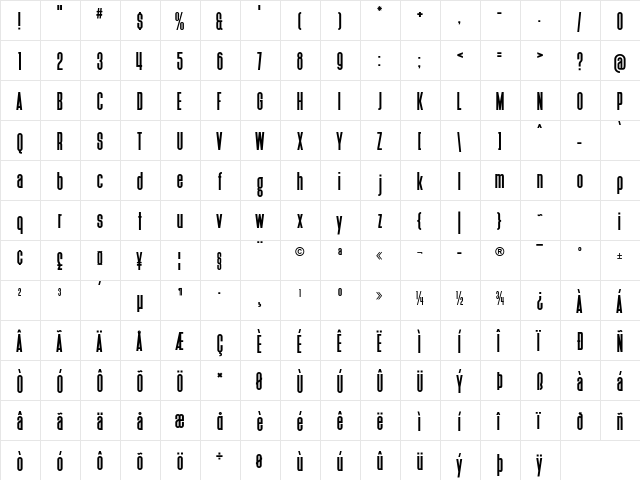
Heathergreen Regular Font Preview
Heathergreen Regular
Design Context for Heathergreen Typeface
Heathergreen is a composed and adaptable typeface that performs quietly and consistently across a wide range of design contexts.
Pro Tip: Pair Heathergreen with a font of contrasting weight or personality to build a more expressive typographic hierarchy.